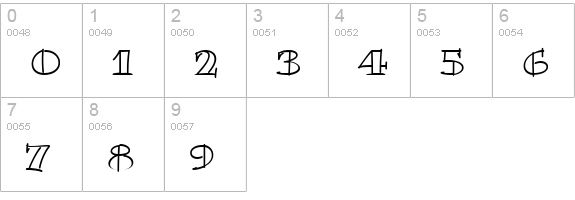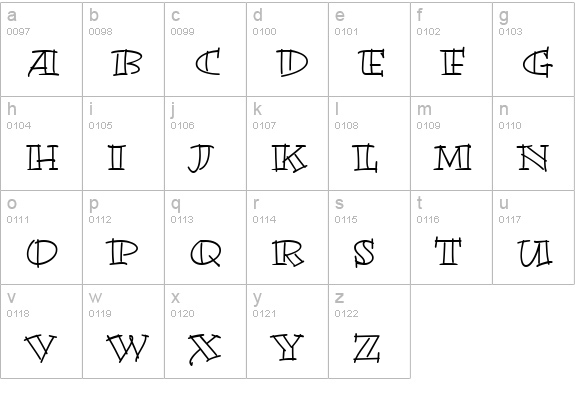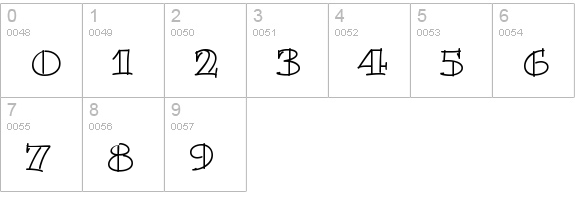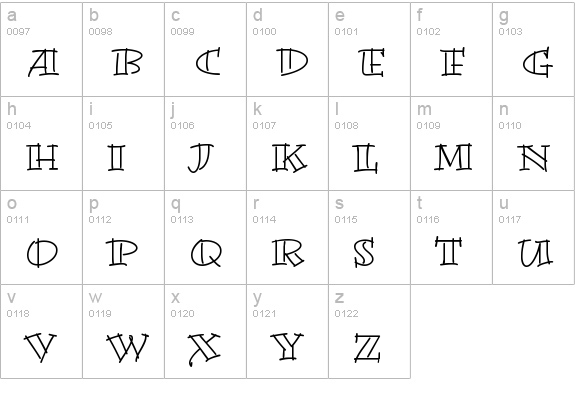
The Bermuda LP Open font is a modern and stylish typeface that exudes elegance and sophistication. With its sleek lines and clean design, this font is perfect for a wide range of design projects, from branding to packaging to web design. The open and airy letterforms of Bermuda LP Open add a touch of uniqueness to any project, making it stand out from the crowd. What's even better is that Bermuda LP Open is completely free to download at FontsMarket.com. That's right, you can access this beautiful font at no cost, allowing you to enhance your designs without breaking the bank. So why wait? Download Bermuda LP Open today and elevate your design projects with this stunning and versatile font.